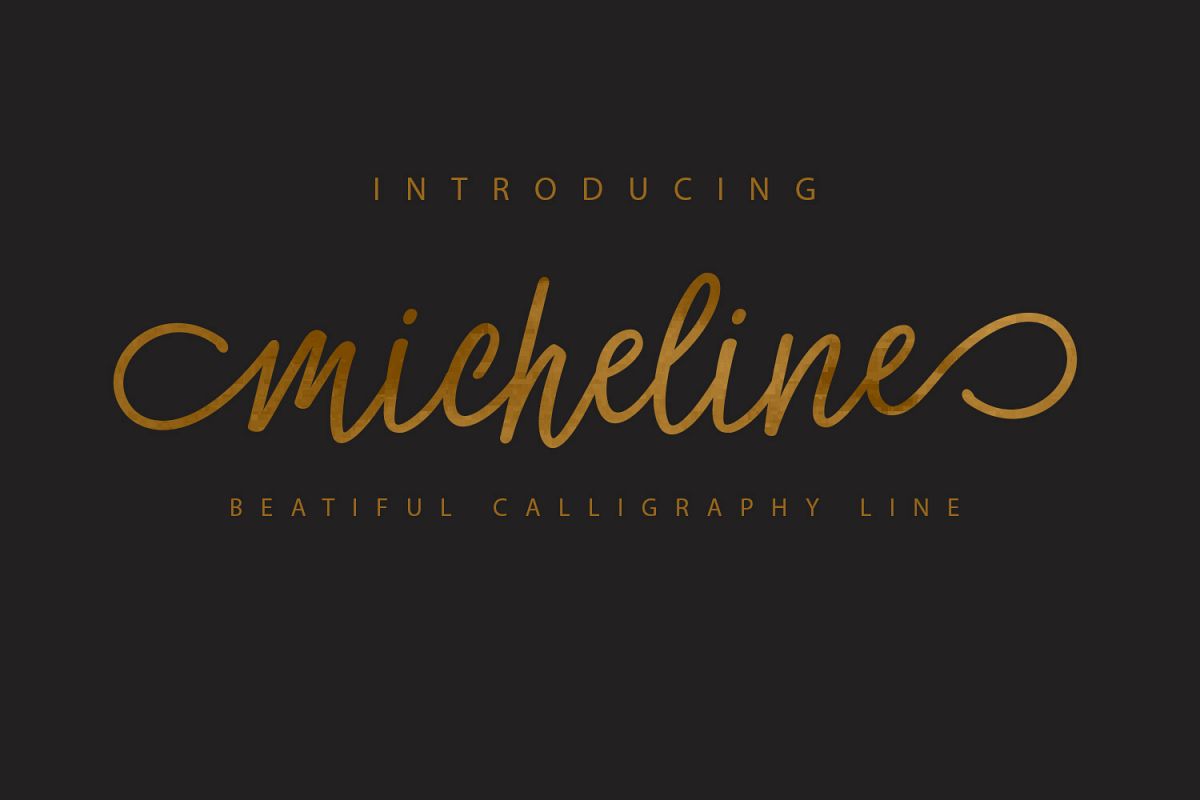
Micheline is hand drawn font typeface with swashes are many choices. a style that has a unique base, smooth lines, classic and elegant touch. Can be used for various purposes.such as the title, signature, logo, wedding invitations, birthday, graduation party t-shirts, letterhead, mugs, signage, labels, newsletters, posters, badges etcMicheline with swashes easily accessed simply by dropping text into your desired swash letters.304+ features 156 glyphs and alternative characters. including the initial and terminal letters, alternately, and support for multiple languages. fonts are included: .Micheline . OTF .Micheline . TTFT To activate OpenType Stylistic alternative, you need a program that supports OpenType features such as Adobe Illustrator CS, Adobe Indesign and CorelDraw X6-X7, Microsoft Word 2010 or later.